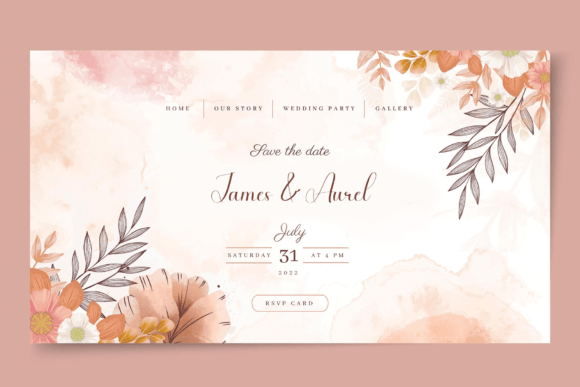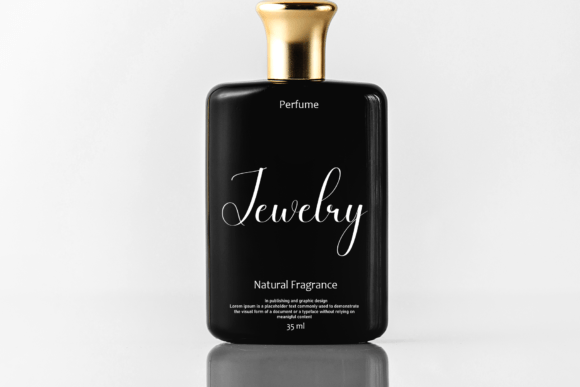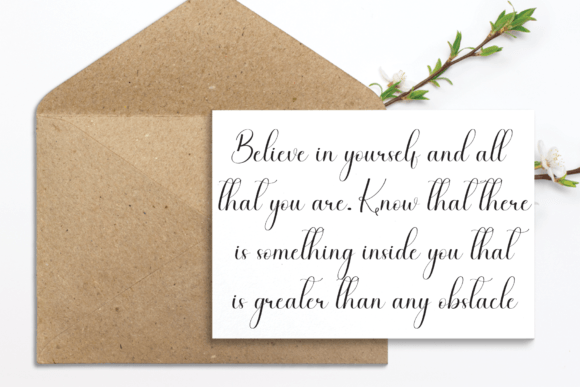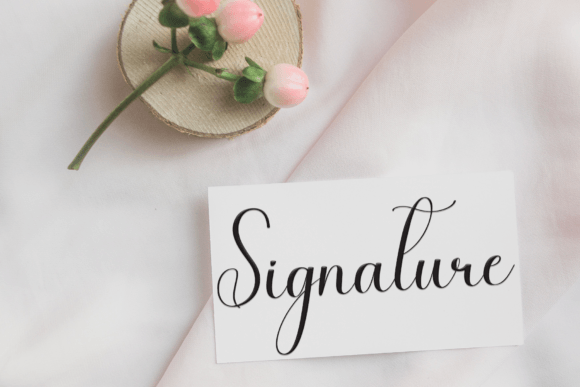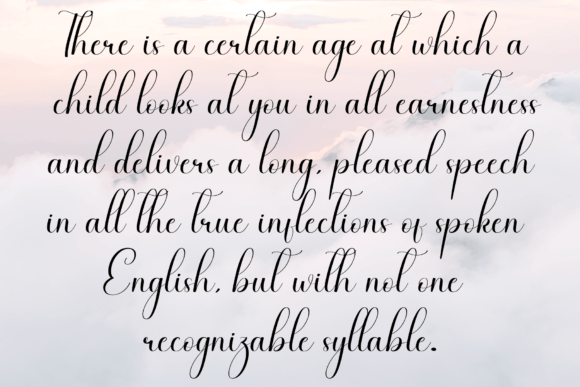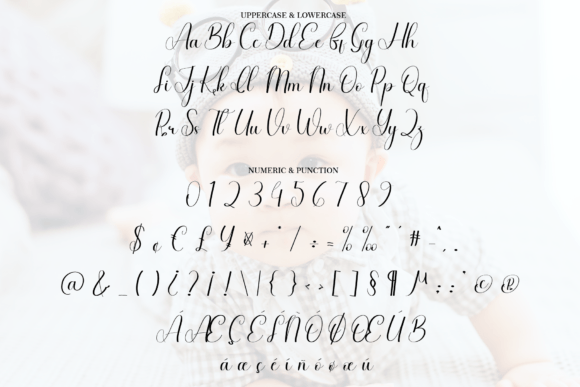
Adding a Touch of Whimsy with Baby Boys Font
As a designer, there’s nothing quite like the thrill of finding that perfect font to elevate a project. For me, it’s often a moment of serendipity, scrolling through a font library and stumbling upon a face that perfectly captures the mood and tone of the design. It’s a feeling that’s hard to describe, but it’s a mix of excitement and relief – like finding a missing piece of a puzzle.
One font that’s been a recent favorite of mine is Baby Boys, a sweet and friendly handwritten font that’s perfect for adding a touch of whimsy to any design. Whether you’re crafting wedding invitations, designing cards, or working on a brand identity, Baby Boys Font is an excellent choice for those looking to inject a little personality and charm into their work.
Baby Boys Font Key Features
- Unique Characteristics: The font features a playful, cursive design with a mix of uppercase and lowercase letters, making it ideal for creating a whimsical and childlike atmosphere.
Review of Baby Boys Font
When I first laid eyes on Baby Boys Font, I was immediately charmed by its playful, hand-drawn aesthetic. The font’s whimsical feel makes it perfect for projects that need a touch of warmth and personality. ✨ The font’s rounded edges and subtle imperfections give it a unique, human touch that’s hard to find in more polished fonts.
One of the things I appreciate most about Baby Boys Font is its versatility. It works beautifully for a wide range of applications, from children’s book covers to nursery decor, and even for branding small businesses that cater to families. ✨ The font’s wide character set and language support make it a great choice for international projects.
- ⚠️ The font’s informal feel may not be suitable for more formal or professional projects, such as financial reports or academic papers.
- ⚠️ Some users may find the font’s spacing and kerning to be a bit inconsistent, particularly in longer text blocks.
Overall, I think Baby Boys Font is a wonderful addition to any designer’s toolkit. While it may have some limitations, its unique charm and versatility make it a great choice for projects that need a playful, human touch.
Tips for Getting the Most Out of “Baby Boys Font”
For best results, use “Baby Boys Font” in bold or italic styles to add emphasis to your text.
Combine “Baby Boys Font” with other playful fonts or graphics to create a unique and eye-catching design.
“Baby Boys Font” is ideal for:
Baby shower invitations and decorations
Children’s party invitations and materials
Family photo albums and scrapbooks